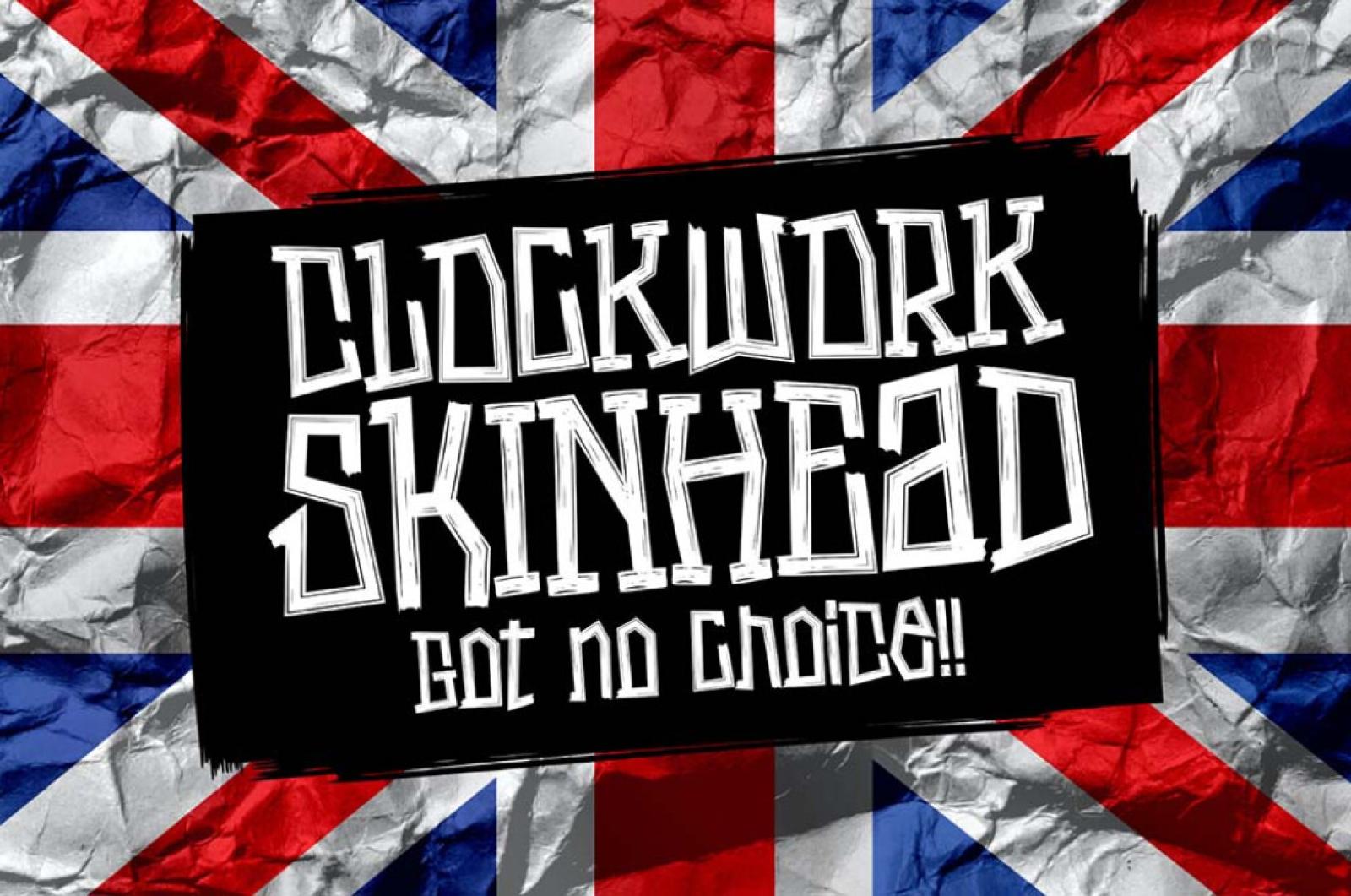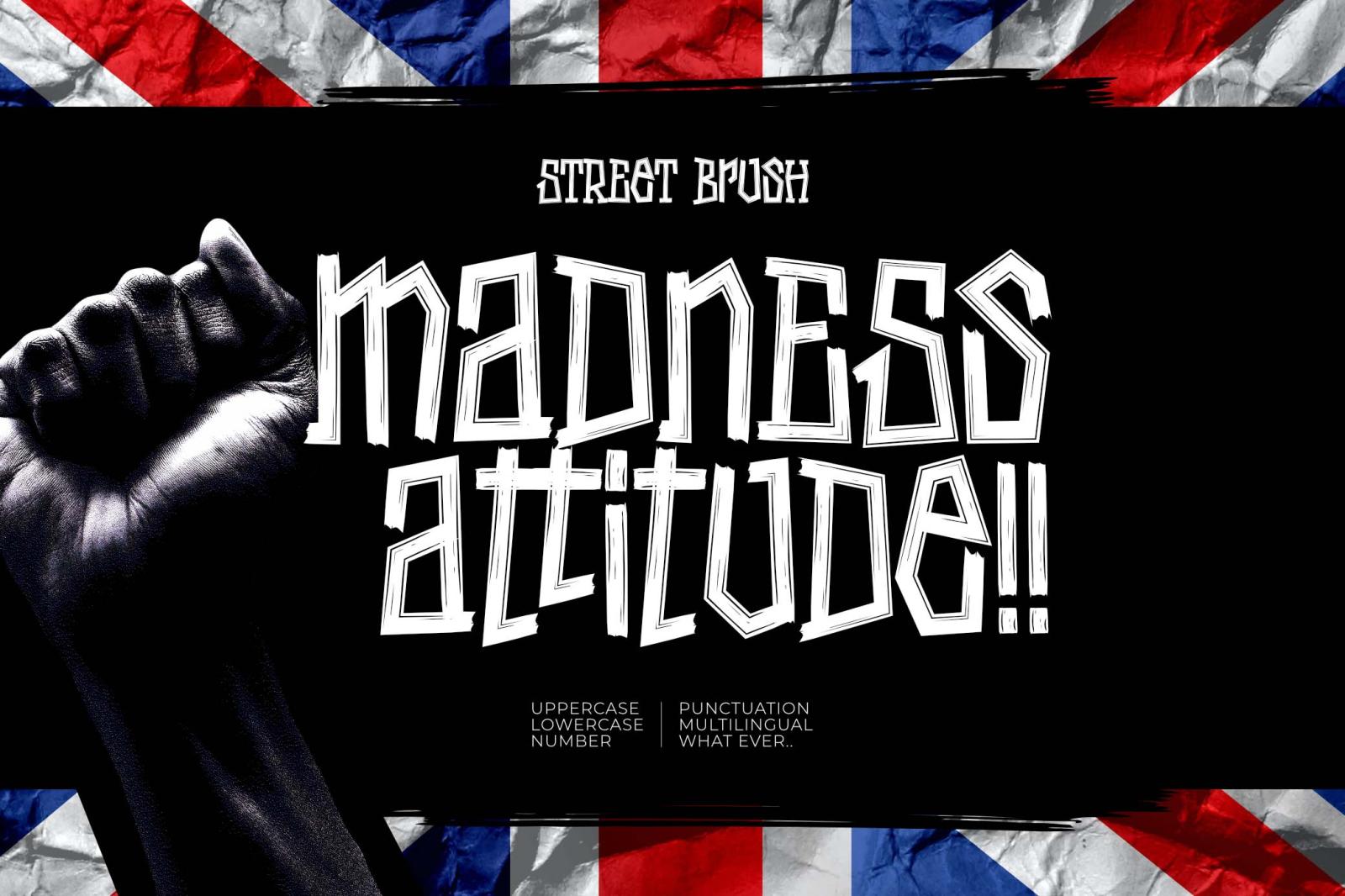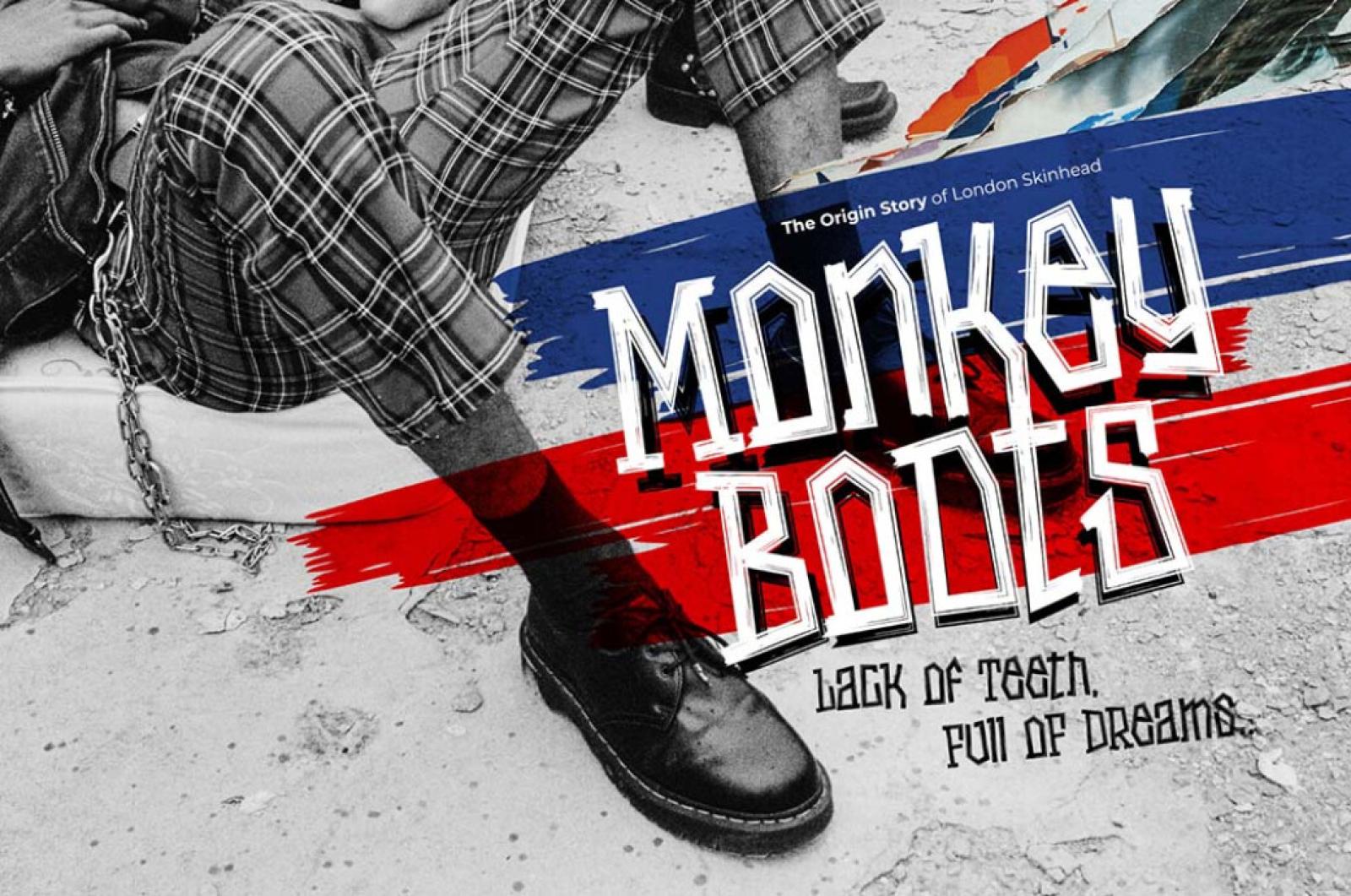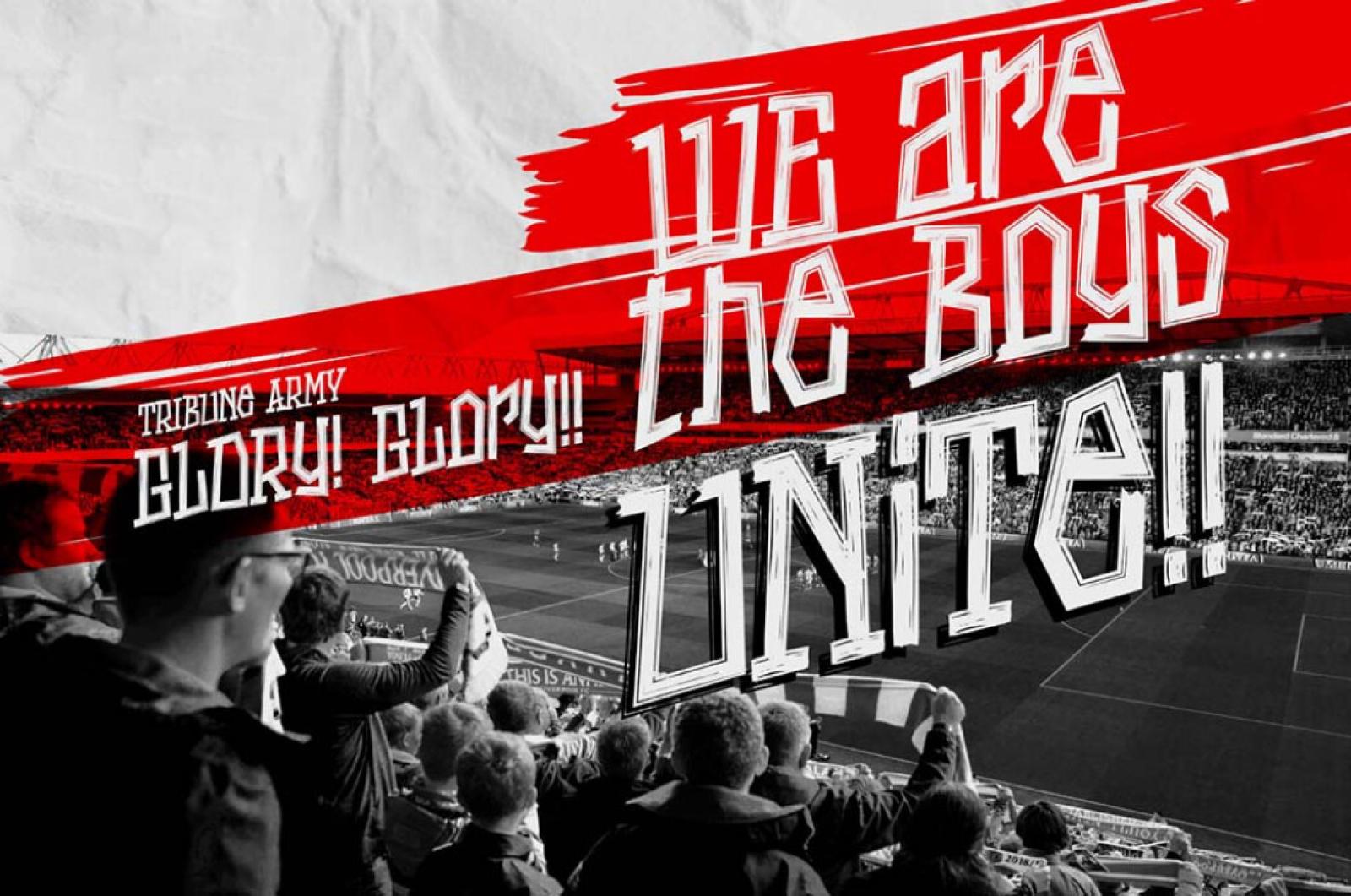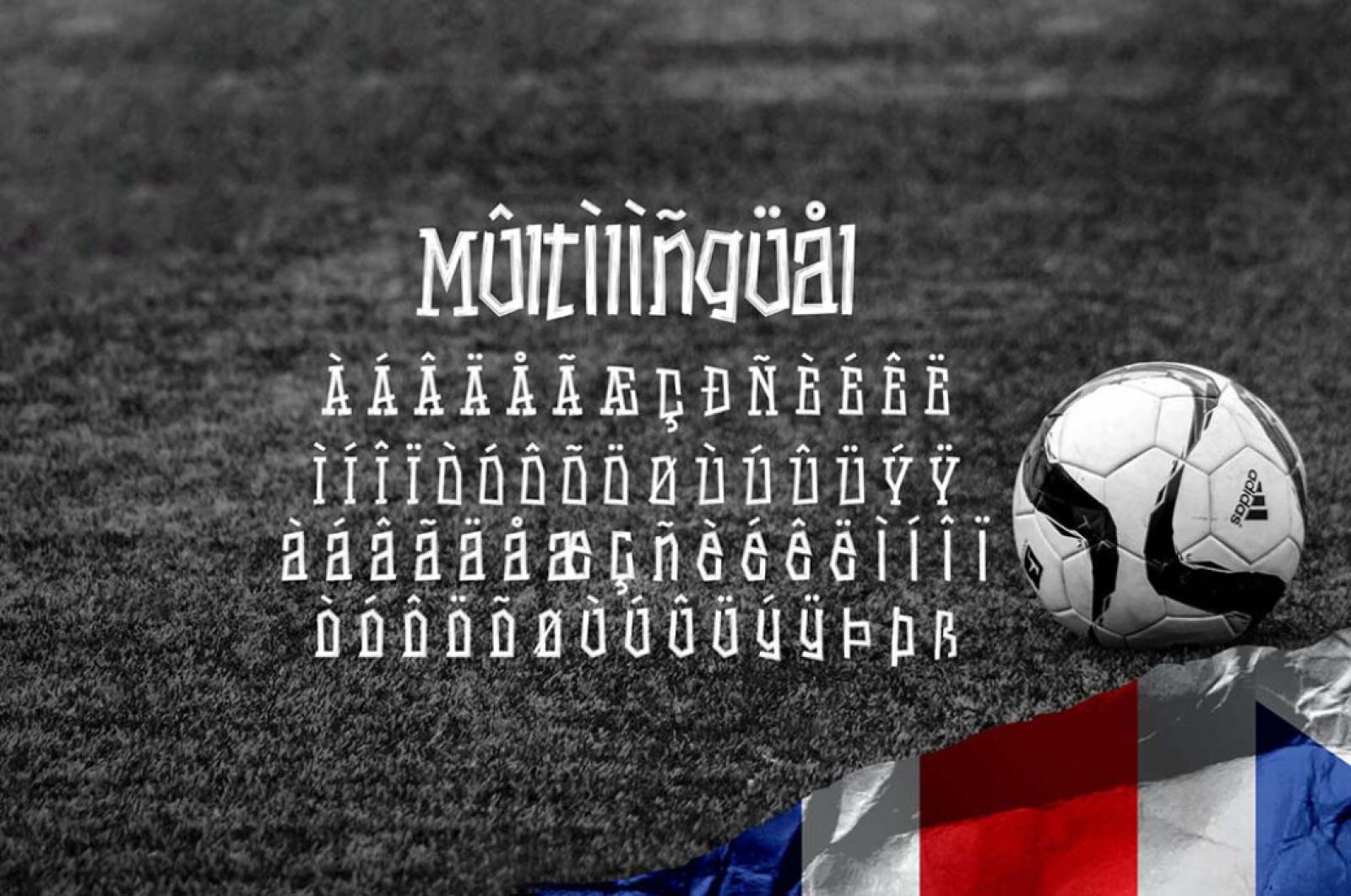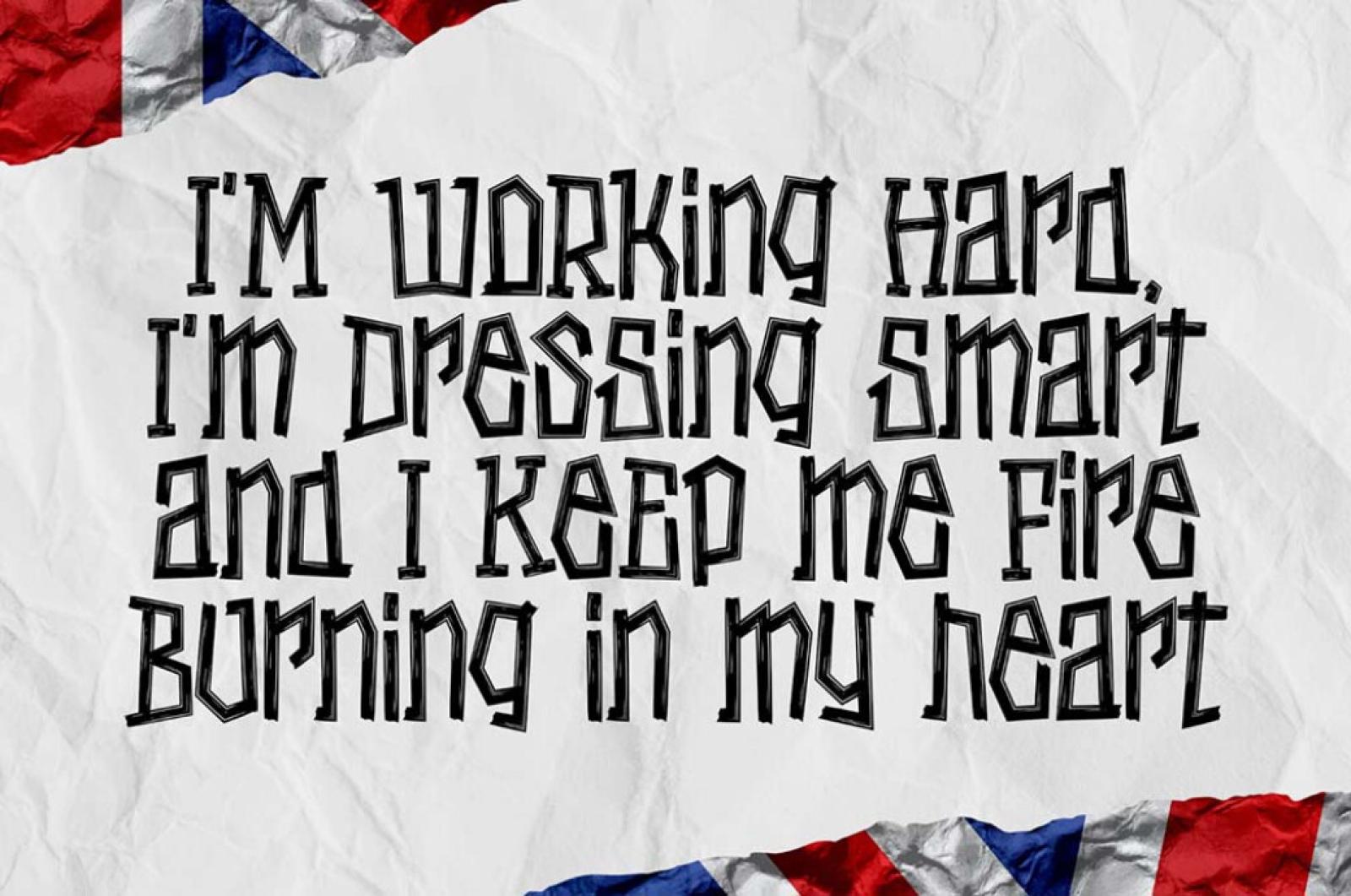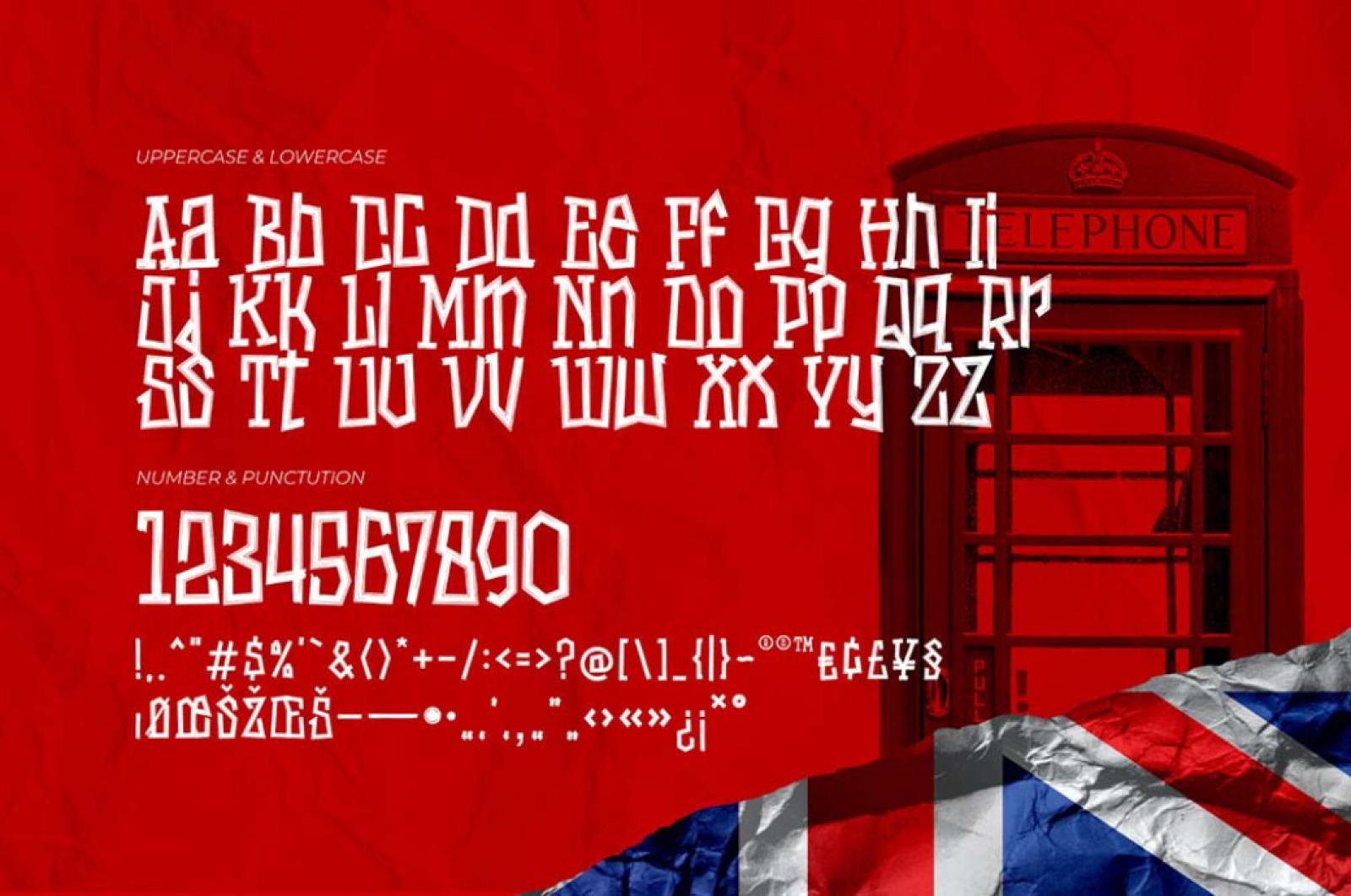
Madness Attitude — Street Brush Font
Be prepared: this font will captivate you with its bold and dynamic design, commanding attention with edgy aesthetics.
Madness embodies a rebellious spirit with its sharp, angular letterforms and aggressive strokes. Each character defies conformity, boasting an unpredictable and unconventional arrangement. And there's a complete set of them: from uppercase and lowercase letters to multilingual support. The exaggerated proportions and jagged edges create a sense of raw energy and urgency, making it ideal for designs that challenge the norm and break free from traditional constraints. Whether used in headlines, logos, or posters, this font demands attention and dares to stand out.